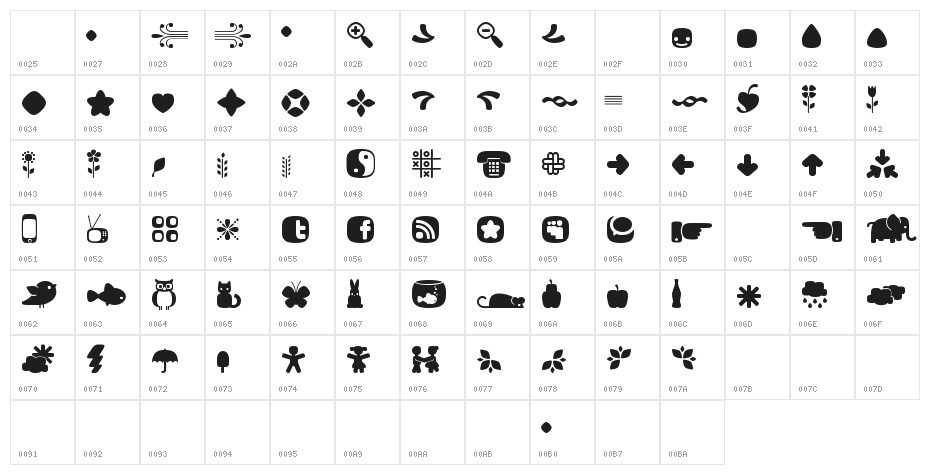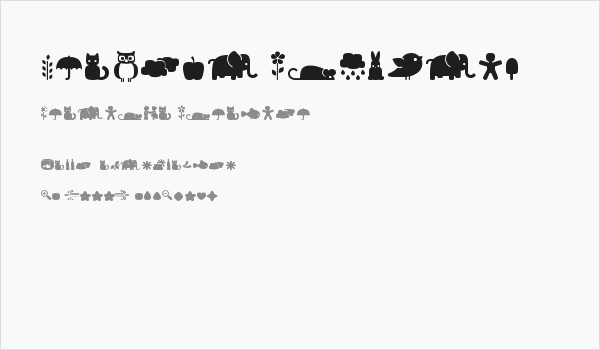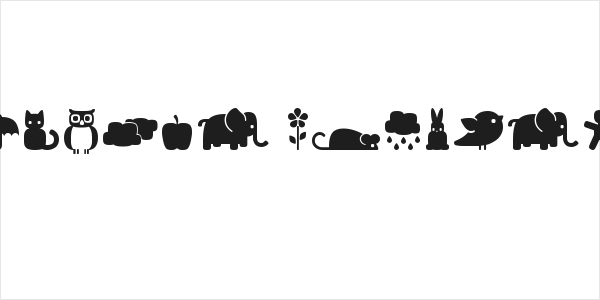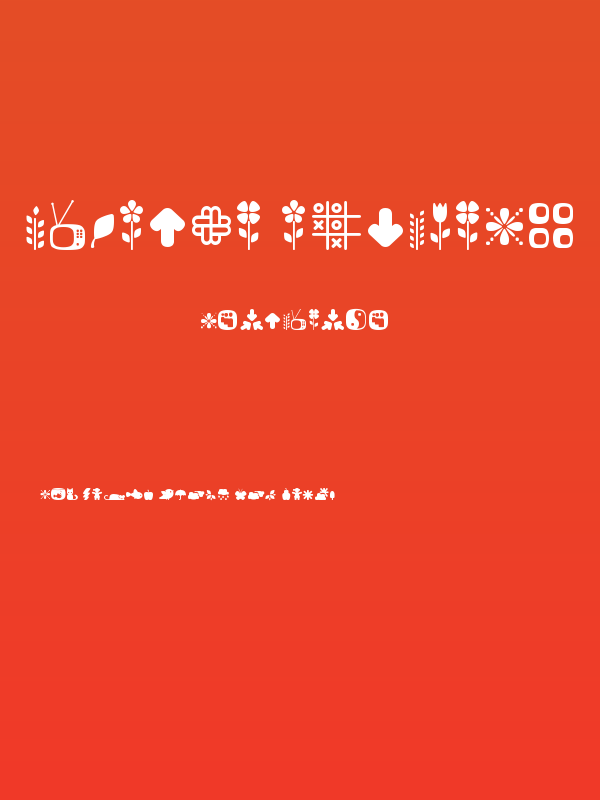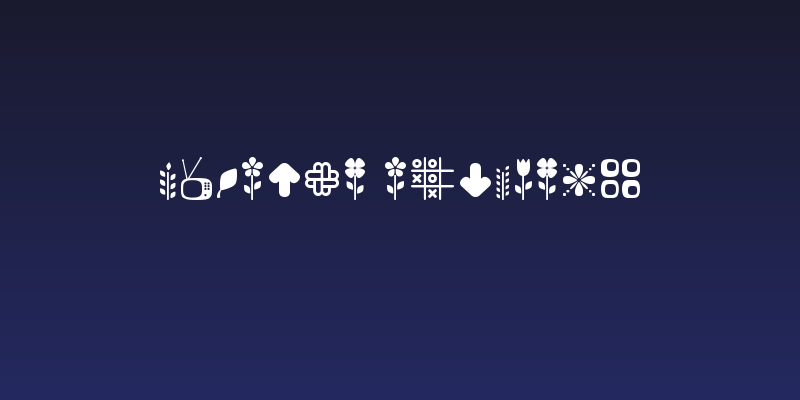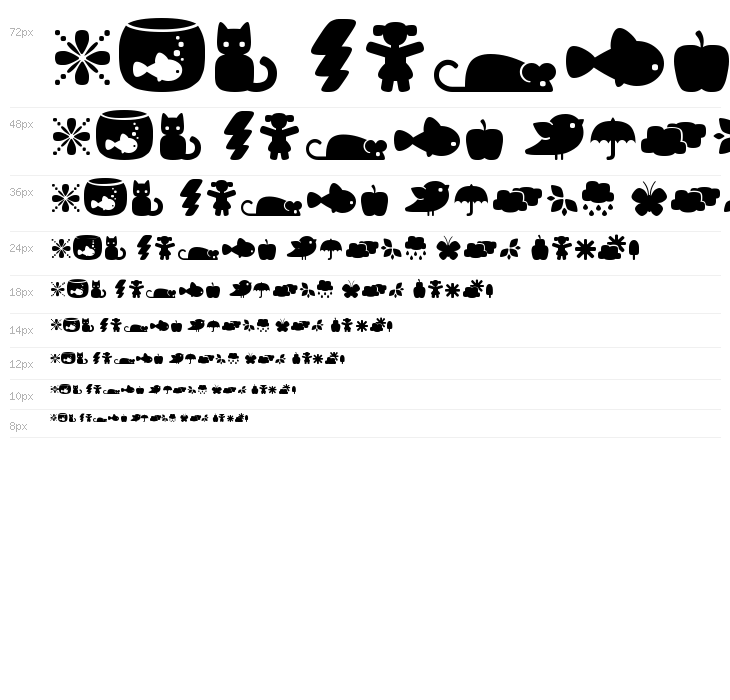
Fredoka Dingbats Font
Fredoka Dingbats Description
This collection features a playful and whimsical set of dingbats, showcasing a variety of icons including flowers, animals, weather symbols, and social media logos. The icons are bold and filled, providing a strong visual impact. Each symbol is distinct and easily recognizable, making them suitable for decorative purposes. The style is consistent throughout, with a rounded and friendly appearance that adds a touch of fun to any project. These dingbats are versatile, offering a wide range of uses from digital designs to print media.
| Use Case | Decorative elements, Graphic design, Branding |
| Proposed Projects | Ideal for use in graphic design projects, children's books, educational materials, and playful branding. |